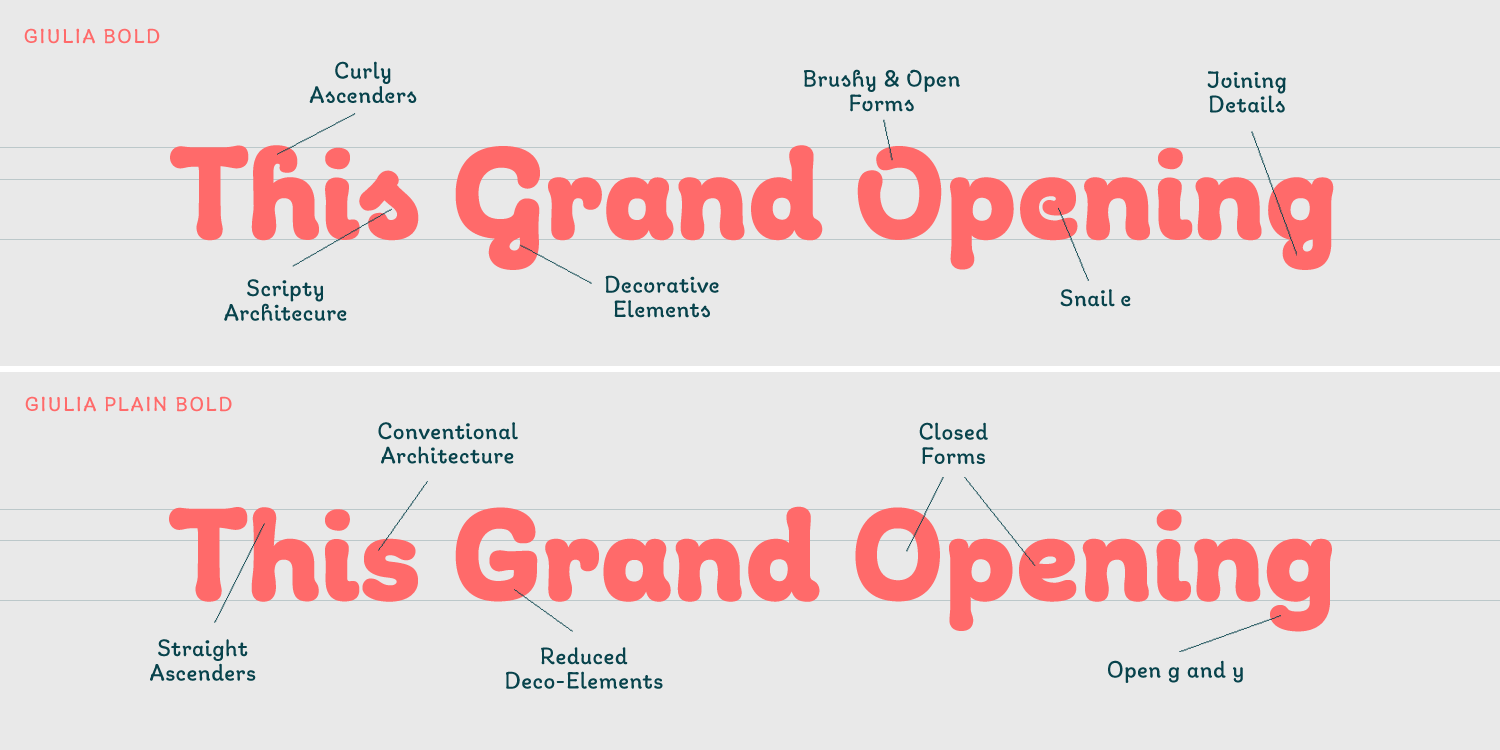
Giulia Font is perfect for Italian restaurant menus, Tuscan wine labels, Mediterranean travel brochures, luxury Italian fashion brands, authentic pizzeria signage, romantic Italian weddings, artisan pasta packaging, vineyard estate branding, Italian cooking blogs, and elegant European lifestyle designs.
Giulia Font is exciting because it embodies the sophisticated elegance and passionate romance of Italian culture with graceful letterforms that evoke the timeless beauty of Renaissance art and the warm hospitality of Italian family traditions, perfect for brands celebrating la dolce vita.
The Giulia Font family includes regular and italic weights with Mediterranean flourishes, Italian-inspired ornaments, and romantic decorative elements, providing designers with authentic tools for creating typography that captures the essence of Italian sophistication and cultural charm.
When your project needs authentic Italian elegance and Mediterranean charm, Giulia Font Free Download delivers the perfect typographic celebration of Italian culture and refinement. This sophisticated typeface combines classical Italian design heritage with contemporary functionality, ensuring your brands resonate with audiences seeking genuine European sophistication and cultural authenticity. The elegant letterforms and romantic styling make this font an essential choice for Italian restaurants, luxury brands, and any application where Italian passion, cultural heritage, and Mediterranean beauty are crucial for creating memorable experiences that celebrate the timeless allure of Italian lifestyle, from Tuscan vineyards to Roman piazzas filled with eternal romance.